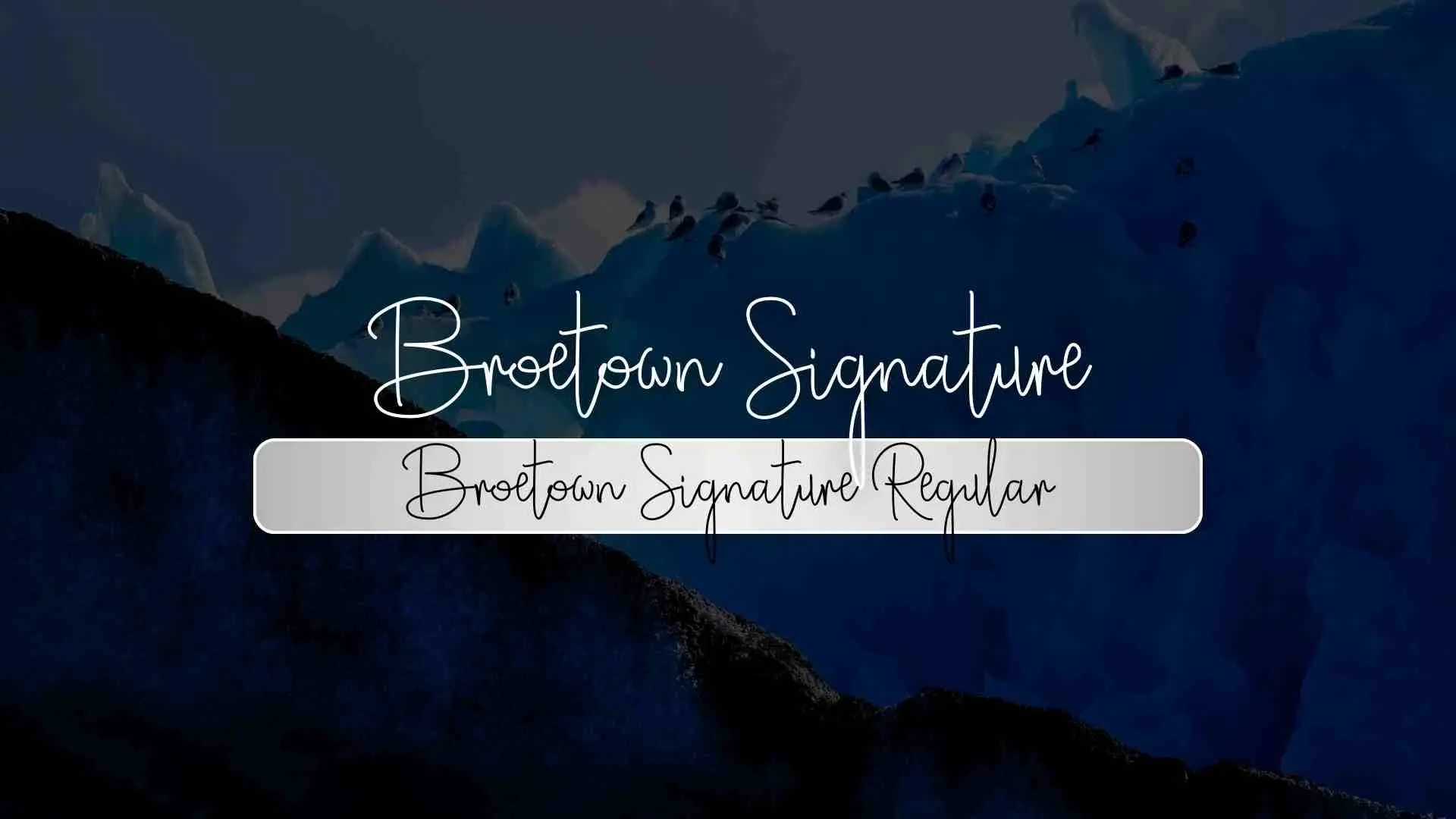
The font Broetown Signature Regular, designed by ocsstudio, falls under the Display category & Broetown Signature font family. Its smooth, flowing letterforms make it a versatile choice for projects that require both elegance and readability. Broetown Signature is particularly well-suited for Book Text, Branding, Logo, Headlines, Titles, Educational materials and Advertisements. With its balance of simplicity and decorative appeal, this font brings a polished touch to both personal and professional designs.